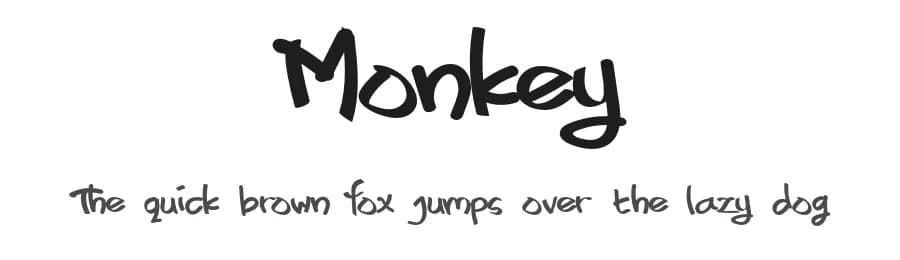
About Monkey Font
Monkey is a script & handwritten font designed by Indra Gunawan. It includes 236 glyphs, a regular weight, OTF (CFF) format, and 209 languages. Monkey is free to download; check the license details on this page before commercial use. Script & handwritten fonts like Monkey work best for wedding invitations, greeting cards, signatures, and elegant branding.
Monkey Font is a script font that shines as a display or heading face. Pair it with a clean sans-serif or serif font for body text β the contrast creates a clear hierarchy while the two styles stay balanced and easy to read.
Monkey Font